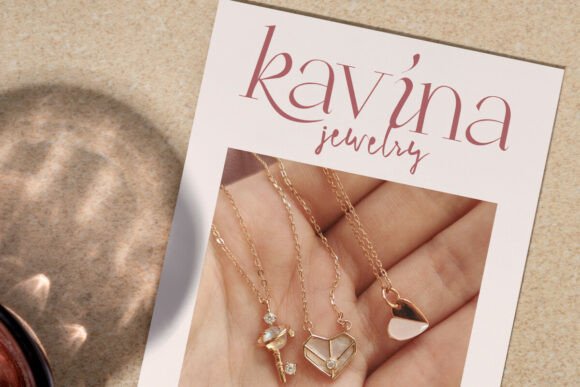
Begainful Font: Elevate Your Designs with Elegance and Sophistication
In the world of typography, a font can make or break the aesthetic of a design. For those seeking to add a touch of luxury and modernity to their editorial designs, branding, packaging, or wedding invitations, Begainful Font is an excellent choice. This refined and graceful serif display font boasts high contrast strokes and elegant curves, making it an ideal selection for designers aiming to infuse their work with timeless sophistication.
The Characteristics of Begainful Font
Begainful Font is distinguished by its high contrast strokes, which provide a dramatic and elegant appearance. The font’s serif design adds a classic touch, while its elegant curves bring a sense of fluidity and grace. This combination results in a font that exudes luxury and sophistication, making it perfect for high-end designs.
Key Features of Begainful Font
- High Contrast Strokes: The significant contrast between thick and thin strokes in Begainful Font creates a visually appealing effect, adding depth and elegance to any design.
- Elegant Curves: The smooth, flowing curves of the font contribute to its refined and graceful appearance, making it suitable for designs that require a touch of sophistication.
- Serif Display Font: As a serif display font, Begainful is designed to make a statement. Its classic serif details add a touch of tradition, while its display characteristics make it perfect for headlines and titles.
Applications of Begainful Font
Begainful Font’s versatility makes it suitable for a wide range of design applications. Here are some of the areas where this font truly shines:
Editorial Design
In editorial design, the choice of font can significantly impact the reader’s experience. Begainful Font, with its elegant and refined appearance, is ideal for:
- Magazines and Journals: Use Begainful Font for headlines and titles to add a touch of luxury and sophistication to your publication.
- Books and Novels: For book covers or interior design, Begainful Font can add an elegant touch, especially for genres that benefit from a classic and refined aesthetic, such as historical fiction or romance.
Branding and Packaging
Begainful Font can elevate your brand’s visual identity with its luxurious and modern appeal. It’s particularly effective for:
- Luxury Brands: If your brand is positioned as high-end or luxury, Begainful Font can help reinforce that image through elegant and sophisticated typography.
- Product Packaging: For premium products, the font’s refined appearance can enhance packaging design, making your product stand out on store shelves.
Wedding Invitations and Stationery
Wedding invitations and stationery are perfect applications for Begainful Font, given its elegant and sophisticated nature:
- Wedding Invites: Make your wedding invitation memorable with Begainful Font. Its luxurious feel sets the tone for a sophisticated and elegant wedding.
- Stationery: For personal or corporate stationery, Begainful Font adds a refined touch, making it ideal for formal communications.
Why Choose Begainful Font?
With so many fonts available, why should Begainful Font be your go-to choice for adding elegance and sophistication to your designs? Here are a few compelling reasons:
Timeless Sophistication
Begainful Font embodies timeless sophistication. Its classic serif design, combined with modern high contrast strokes, ensures that your designs remain relevant and stylish for years to come.
Versatility
Whether you’re working on editorial designs, branding, packaging, or wedding invitations, Begainful Font adapts seamlessly. Its versatility makes it a valuable addition to any designer’s toolkit.
Ease of Use
Begainful Font is designed to be user-friendly. Its clear and elegant letterforms ensure excellent readability, making it suitable for both digital and print designs.
Begainful Font is more than just a typeface; it’s a design statement. With its refined and graceful appearance, high contrast strokes, and elegant curves, it brings a touch of luxury and modernity to any design project. Whether you’re an editorial designer, a brand looking to elevate your visual identity, or someone planning a wedding, Begainful Font offers the perfect blend of elegance and sophistication. By incorporating Begainful Font into your designs, you’re not just choosing a font; you’re embracing a design philosophy that values beauty, elegance, and timelessness.
Final Thoughts
In a world where design trends come and go, Begainful Font stands out as a classic choice that will continue to inspire and elevate your designs. Its unique blend of traditional serif elements and modern aesthetics makes it a versatile and valuable asset for any designer. So, if you’re looking to add a touch of luxury and sophistication to your work, look no further than Begainful Font.